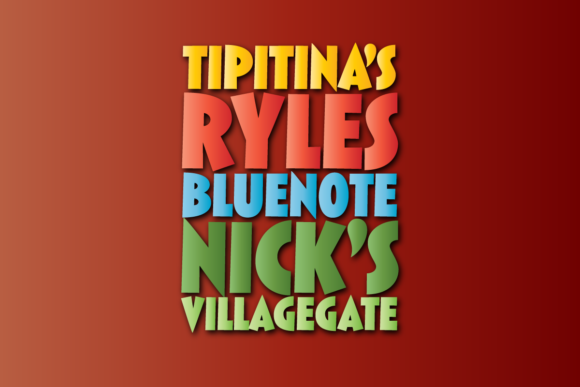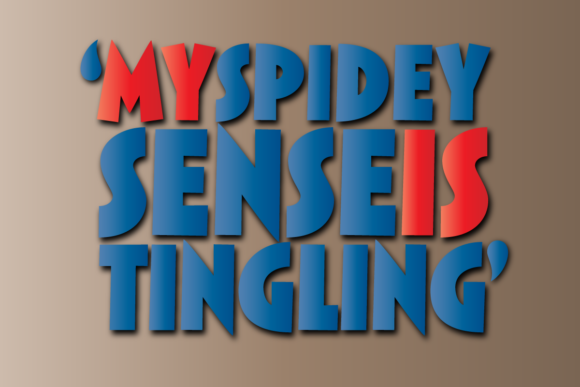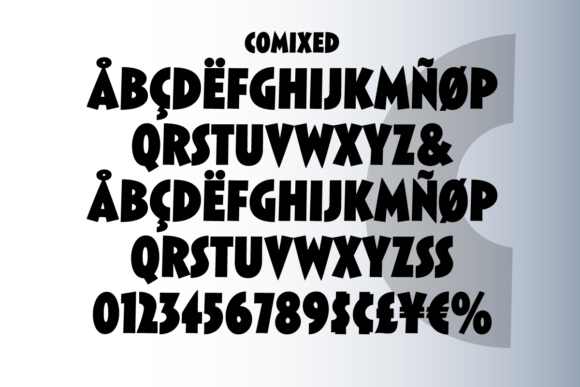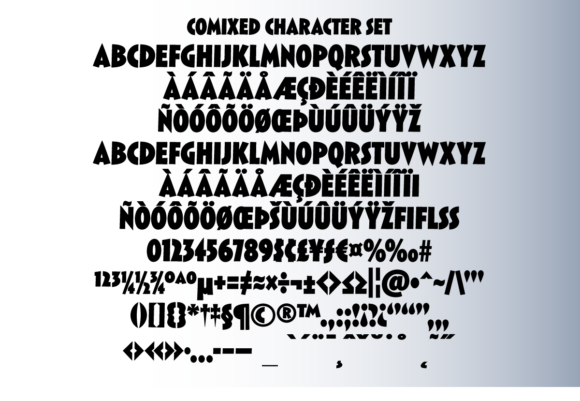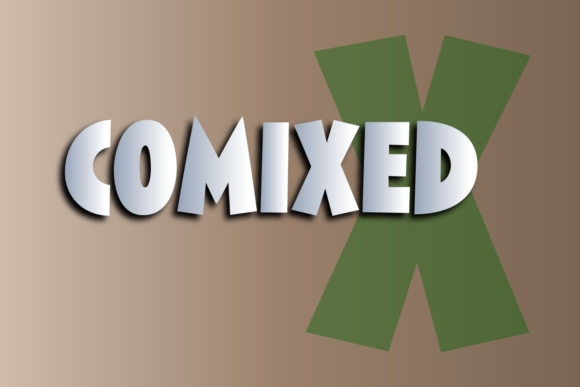
Introducing Comixed Font: The Ultimate Display Font for Joyful Creations
Are you a designer or crafter looking for a font that can add a touch of joy and playfulness to your creations? Look no further than Comixed Font! This cool and thick lettered display font is perfect for a wide range of projects, from cartoon-related designs and children’s games to quotes, titles, brand names, book covers, posters, and more.
What Makes Comixed Font So Special?
Comixed Font is a unique and eye-catching font that is sure to grab attention. Its thick and bold lettering gives it a fun and playful feel, making it perfect for designs that require a touch of whimsy. The font is highly versatile, and its uses are endless. Whether you’re creating a children’s book, designing a poster for a kids’ event, or simply looking for a fun font to use in your craft projects, Comixed Font is a great choice.
Key Features of Comixed Font
- Thick and bold lettering: Comixed Font features thick and bold lettering that gives it a fun and playful feel.
- Highly versatile: This font can be used for a wide range of projects, from cartoon-related designs and children’s games to quotes, titles, brand names, book covers, posters, and more.
- Easy to read: Despite its bold and playful feel, Comixed Font is easy to read, making it perfect for designs that require a clear and concise message.
- Perfect for designs that require a touch of joy: Comixed Font is designed to add a touch of joy and playfulness to your creations, making it perfect for designs that require a fun and lighthearted feel.
Uses for Comixed Font
Comixed Font is a highly versatile font that can be used for a wide range of projects, including:
- Cartoon-related designs: Comixed Font is perfect for cartoon-related designs, such as character logos, cartoon titles, and more.
- Children’s games: This font is great for children’s games, such as puzzle titles, game logos, and more.
- Quotes and titles: Comixed Font can be used to add a touch of joy and playfulness to quotes and titles.
- Brand names: This font can be used to create bold and eye-catching brand names that are sure to grab attention.
- Book covers: Comixed Font is perfect for book covers, especially for children’s books and graphic novels.
- Posters: This font can be used to create eye-catching posters for kids’ events, concerts, and more.
Tips for Using Comixed Font
Here are a few tips for using Comixed Font:
- Use it sparingly: While Comixed Font is a fun and playful font, it can be overwhelming if used too much. Use it sparingly to add a touch of joy and playfulness to your designs.
- Pair it with other fonts: Comixed Font can be paired with other fonts to create a unique and eye-catching design.
- Experiment with colors: This font looks great in a variety of colors, so don’t be afraid to experiment and find the perfect color for your design.
Comixed Font is a cool and thick lettered display font that is perfect for designs that require a touch of joy and playfulness. Its highly versatile and easy to read, making it perfect for a wide range of projects. Whether you’re a designer or crafter, Comixed Font is a great choice for adding a fun and playful feel to your creations.